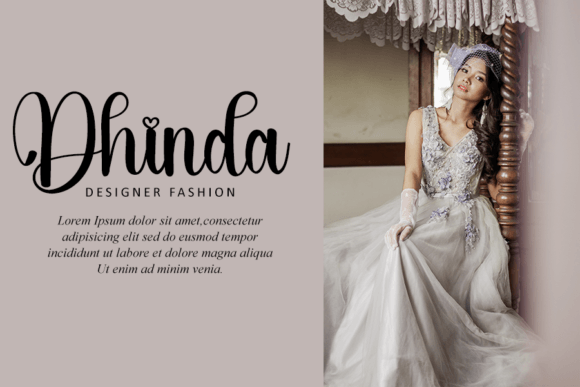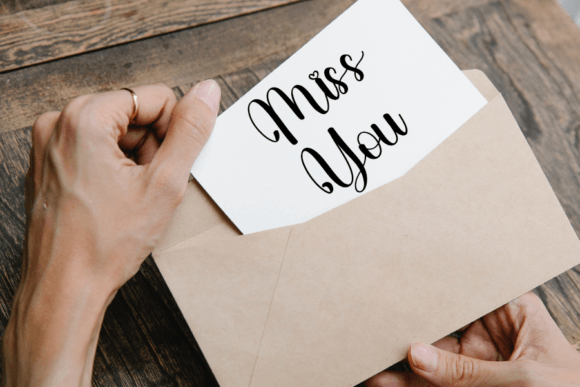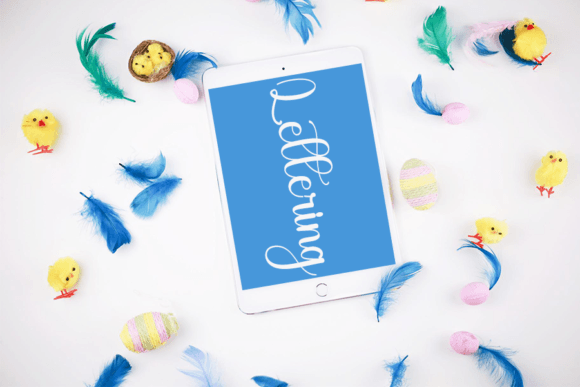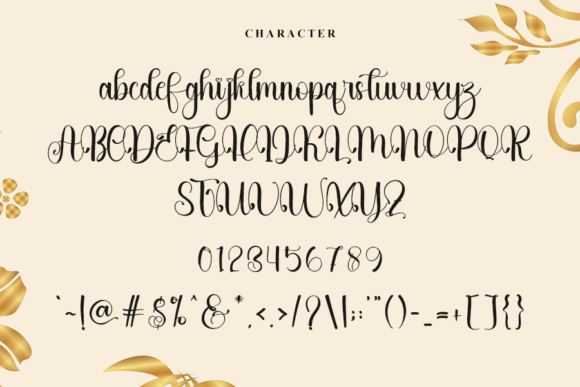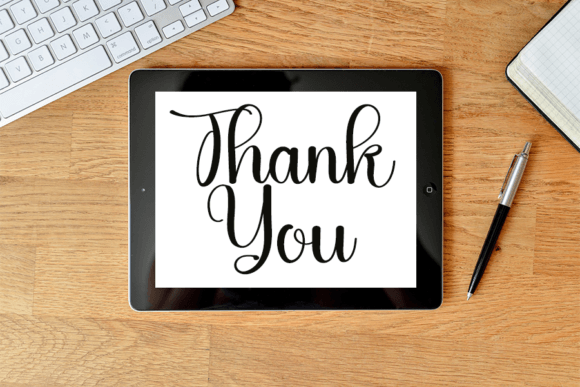
Virtual Font
About Virtual Font
“Virtual” is a gorgeous and elegant handwritten font that adds a charming and sophisticated appearance to your design projects. This font’s refined style makes it a perfect choice for various creative endeavors that demand an elegant and captivating aesthetic.
One of the standout features of “Virtual” is its ability to convey a sense of charm and sophistication. The handwritten design of the font adds a personal and authentic feel to your text, making it an ideal choice for projects that aim to create an upscale and stylish impression.
This font’s versatility allows it to be applied to a wide range of design contexts. “Virtual” can be used for branding, invitations, stationery, product packaging, social media posts, advertisements, and more. Its elegant appearance enhances the visual appeal of your content.
Visualize using “Virtual” for your brand’s logo and how it communicates a sense of charm and sophistication to your audience. Imagine incorporating this font into your wedding invitations, setting the tone for an elegant and memorable event. When you choose “Virtual” for your projects, you can confidently expect results that are visually stunning and captivating.
In conclusion, “Virtual” is more than just a font; it’s a design asset that brings elegance and charm to your creative projects. Its handwritten style and refined design make it an ideal choice for a wide range of applications, particularly those where a charming and sophisticated appearance is desired. Embrace “Virtual” as a font that elevates your work, making it visually captivating and memorable.